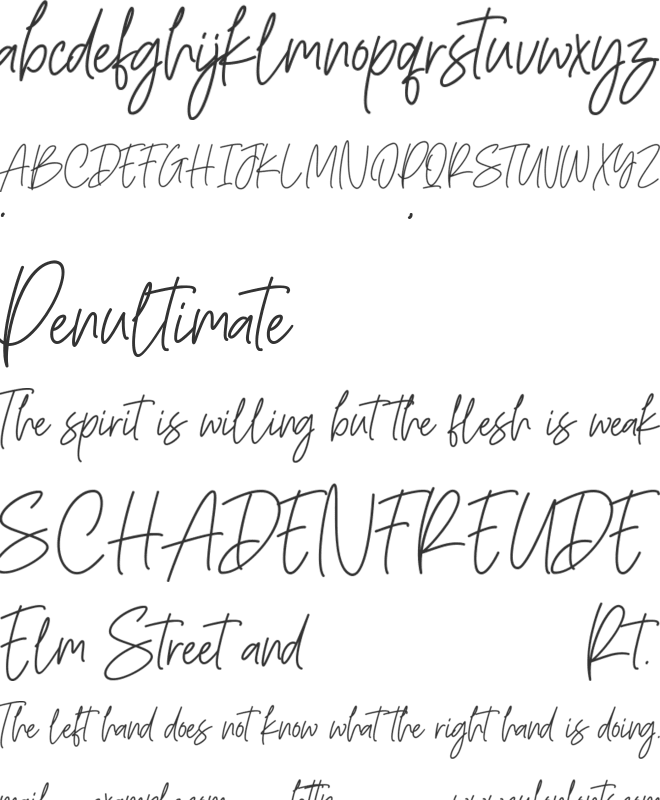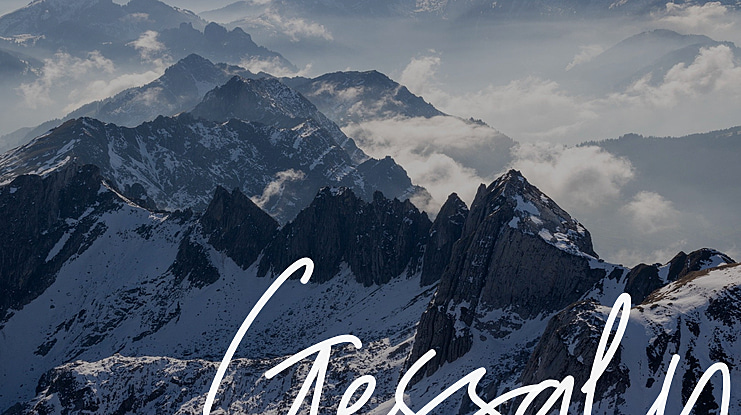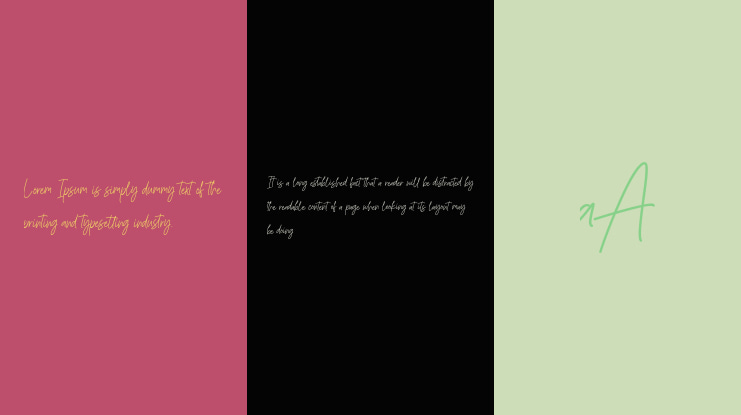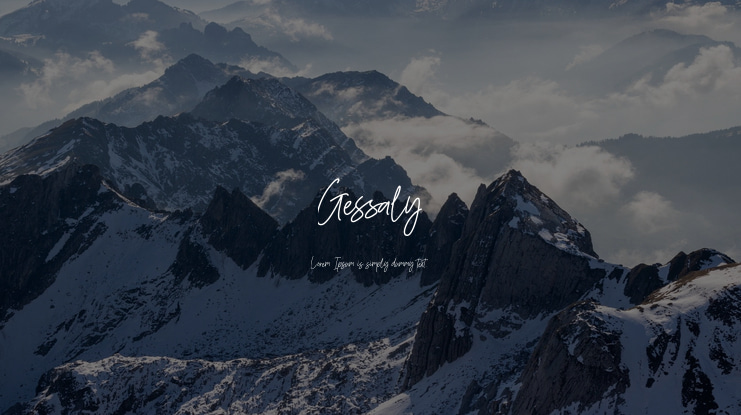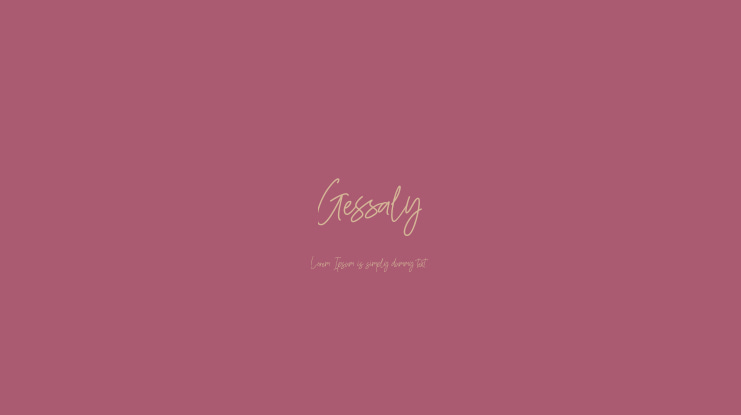
Gessaly Font
Gessaly Handwritten Font is a unique script with a classy and fancy feel. This handwritten font will add an authentic vibe to any design project!
– Uppercase, Lowercase, Numeral & Punctuation
– Alternate Letters, Ligature & Swash/Tail